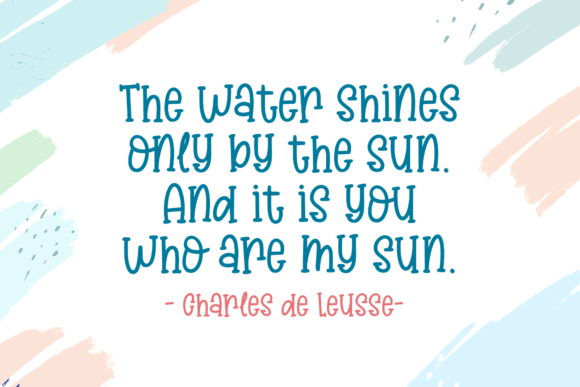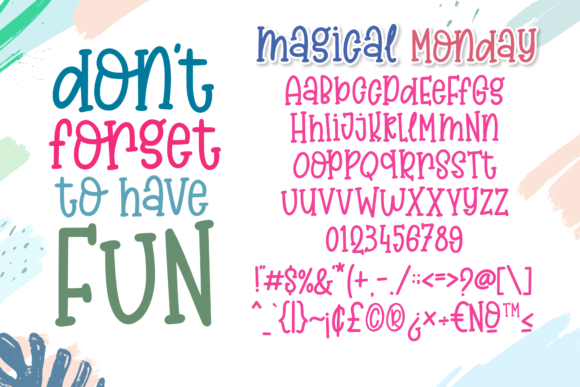
Magical Monday Font
db-ku.com - Script & Handwritten -- Magical Monday is a lovely handwritten font. Get creative with its bouncy, charming style and add it to each of your inspired ideas.